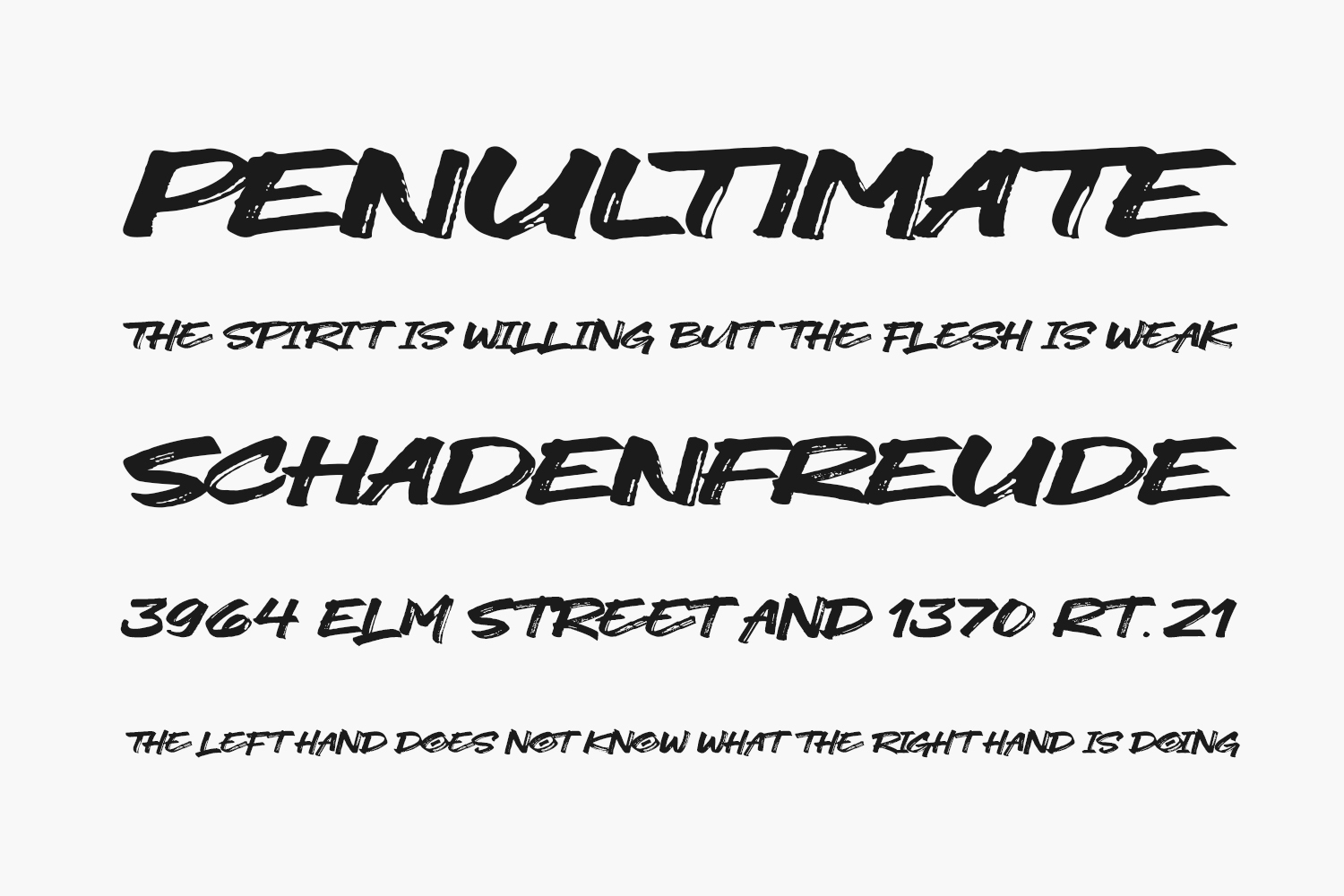
North Zone Free Font is an urban style display font. It is ideal for logos, apparel, t-shirts, hoodies, quotes, product packaging, or anything that needs a typographic turbo-boost. North Zone Free Font was designed by Riyadh Rahman and is free for personal use only. Please purchase the full version for commercial use.